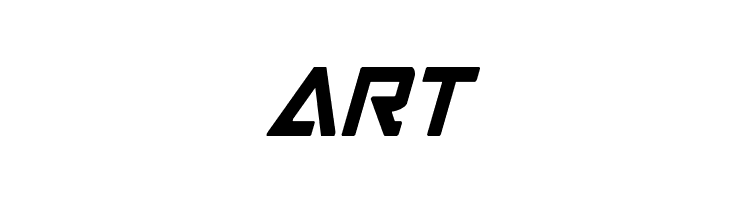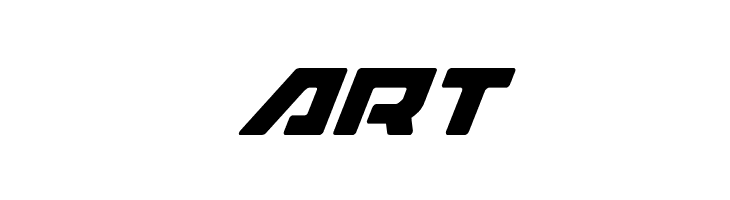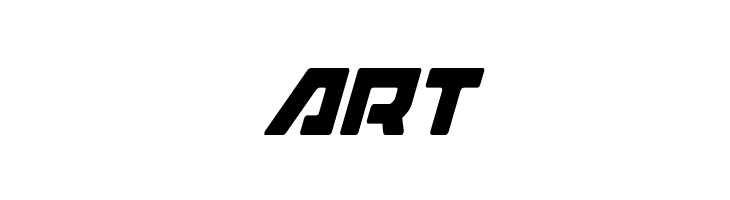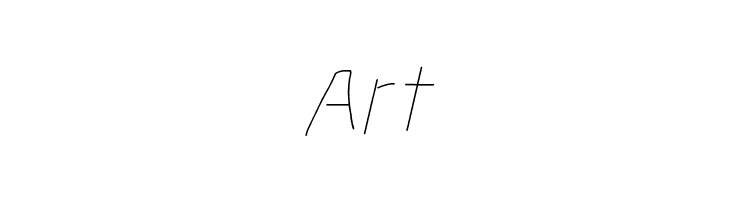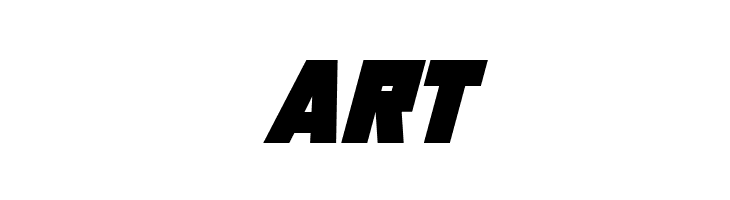
A bold, italicized, and condensed font with a modern, dynamic style.
A bold, dynamic, and futuristic italic font with a condensed style.
A bold, geometric, and oblique typeface with a futuristic and industrial style.
A modern, ultra-thin italic font with a futuristic, electronic style.
A bold, ultra-italicized font with a dynamic and futuristic style.
A bold, oblique font with a dynamic and energetic style.